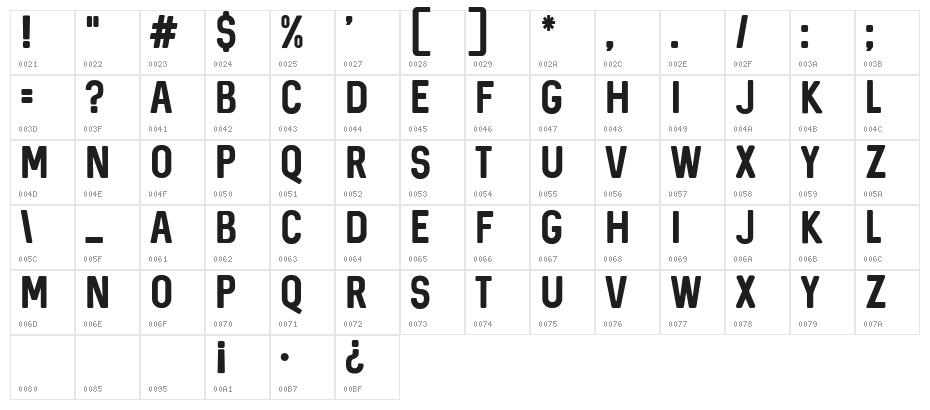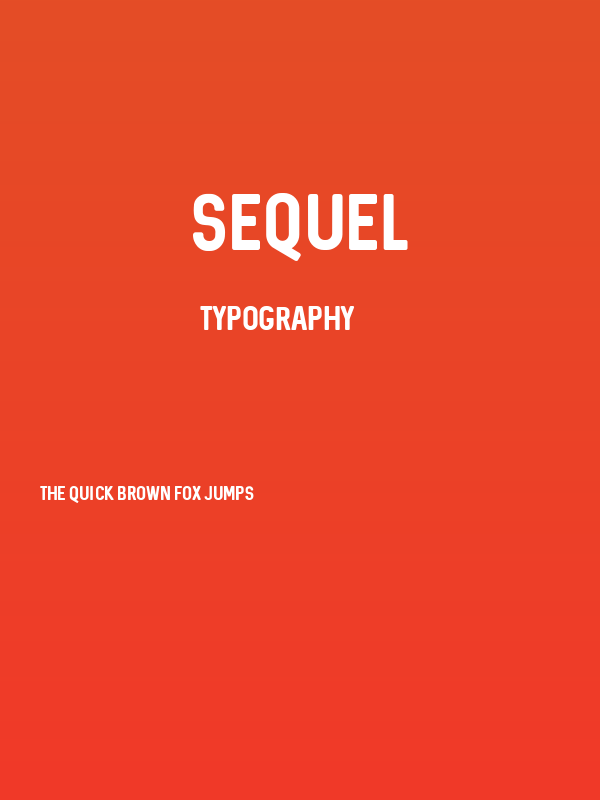
Sequel Font
Sequel Description
This font features a bold and modern sans-serif style with clean, straight lines and uniform stroke widths. The characters are well-defined and maintain a consistent height, providing a strong and impactful appearance. The uppercase letters are particularly striking, with a geometric precision that enhances readability. The numerals and special characters are crafted with the same attention to detail, ensuring a cohesive look across all text. Its simplicity and clarity make it versatile for various design applications.
| Proposed Projects | Ideal for branding, headlines, posters, and digital media where a strong, modern presence is desired. |